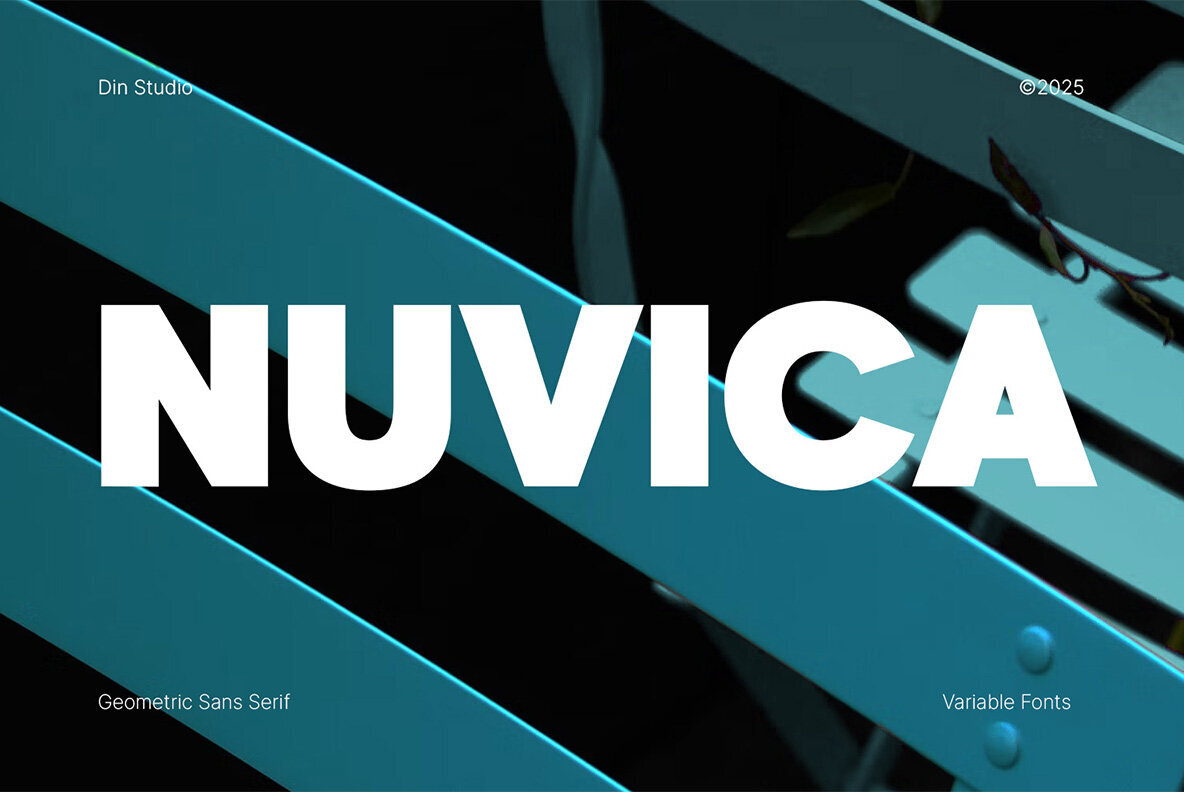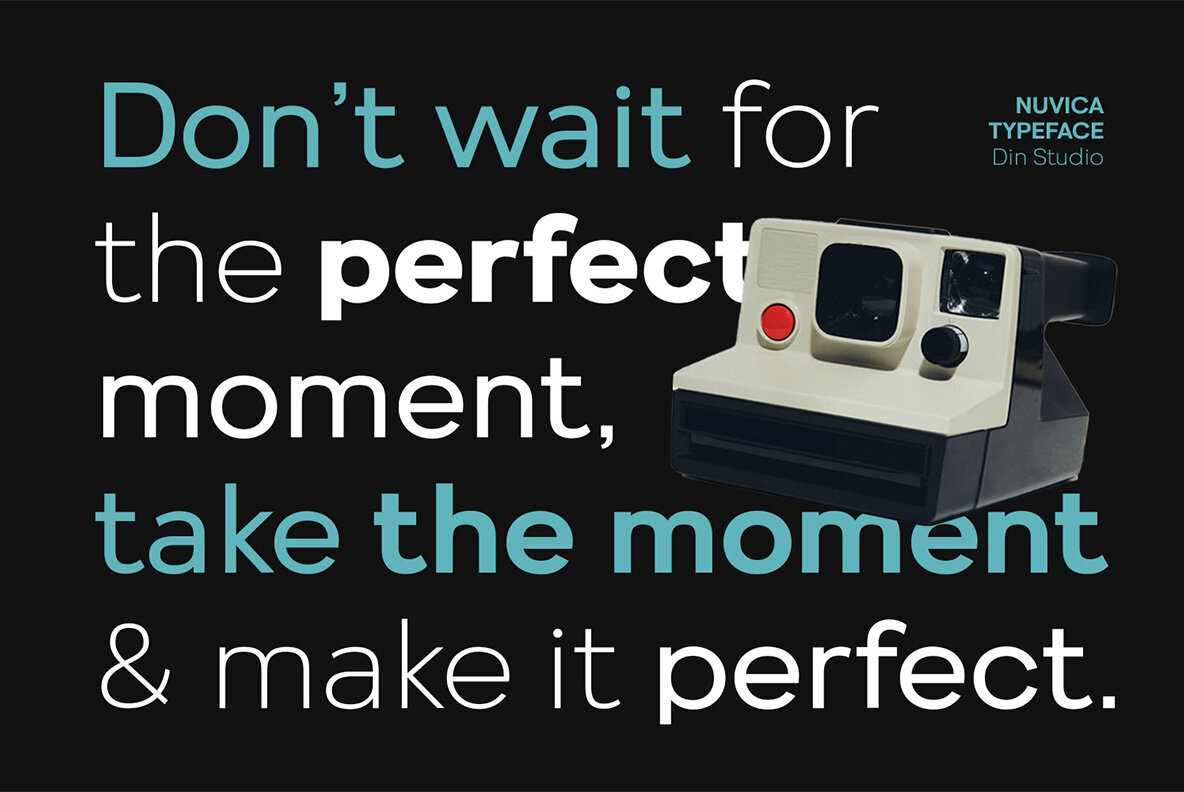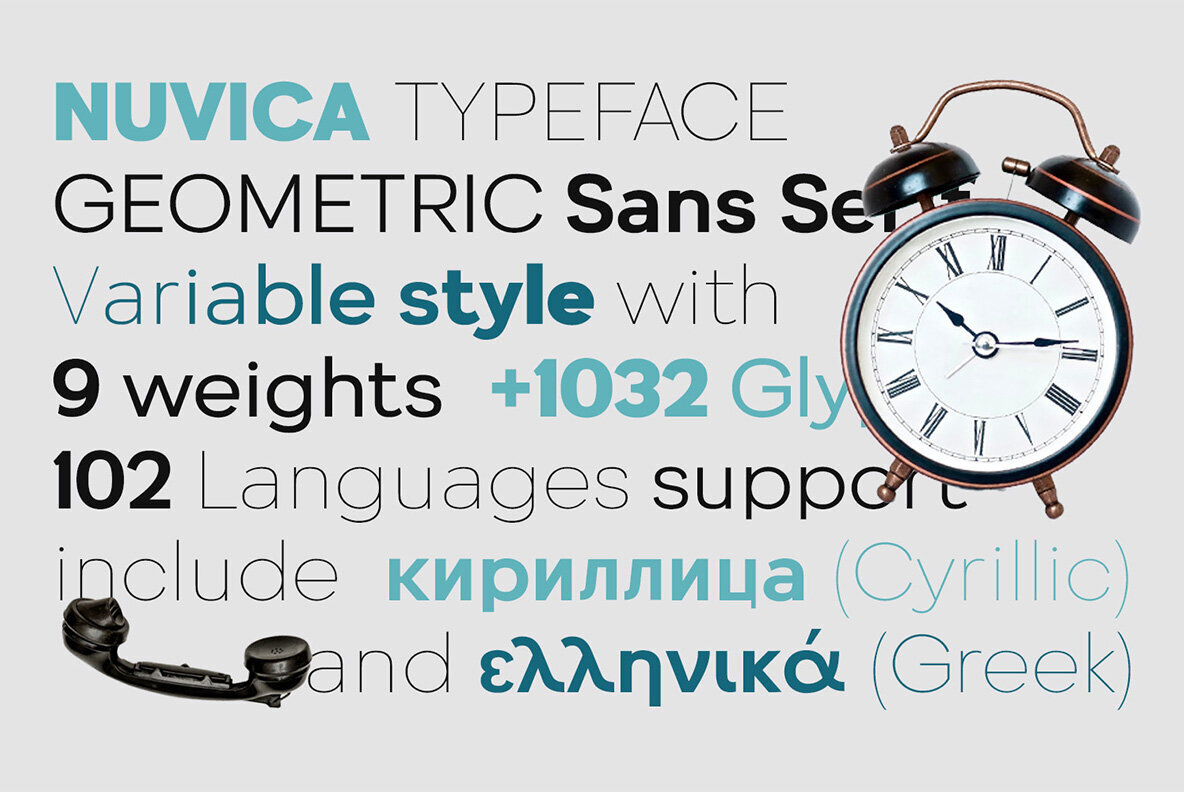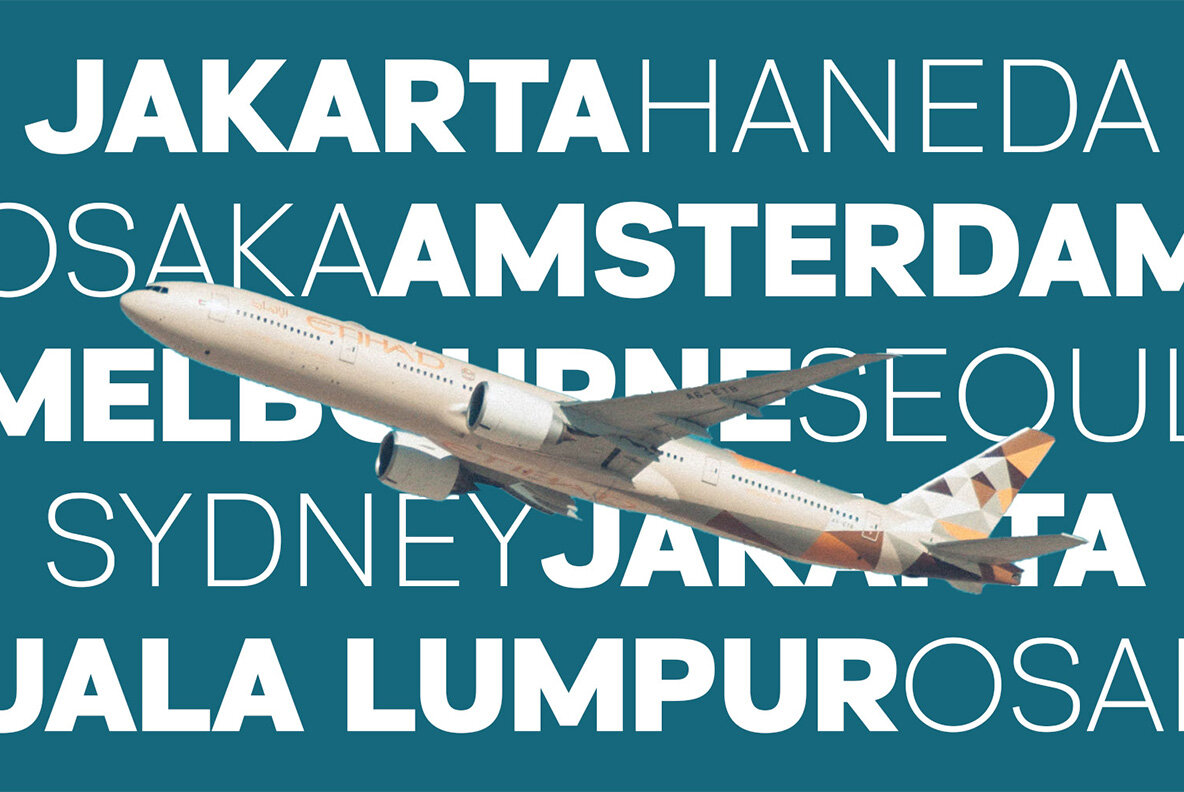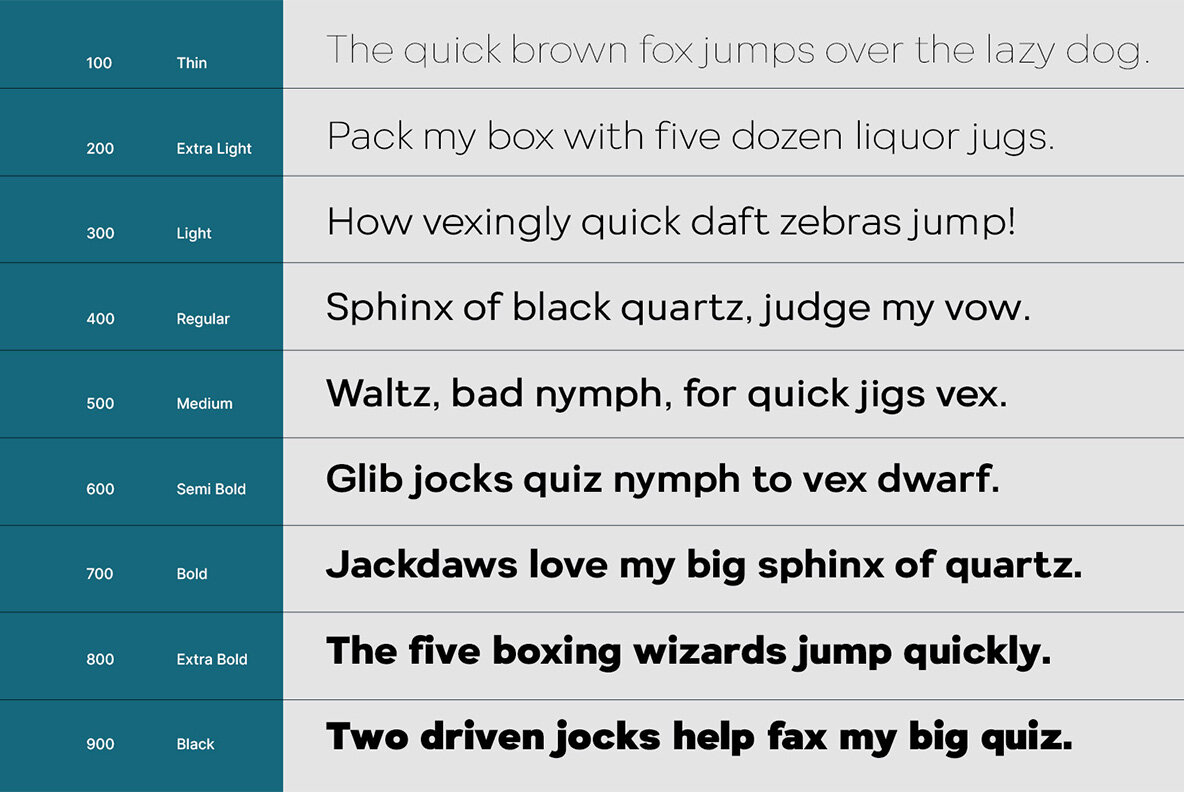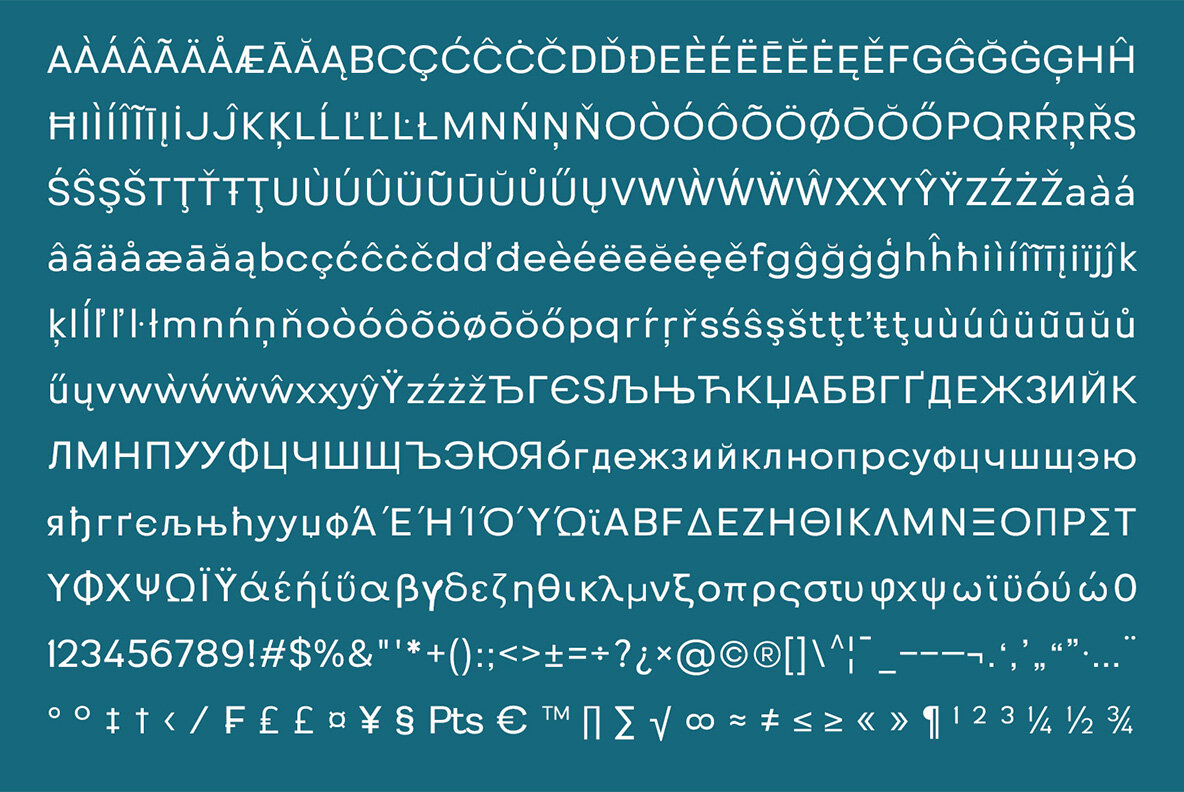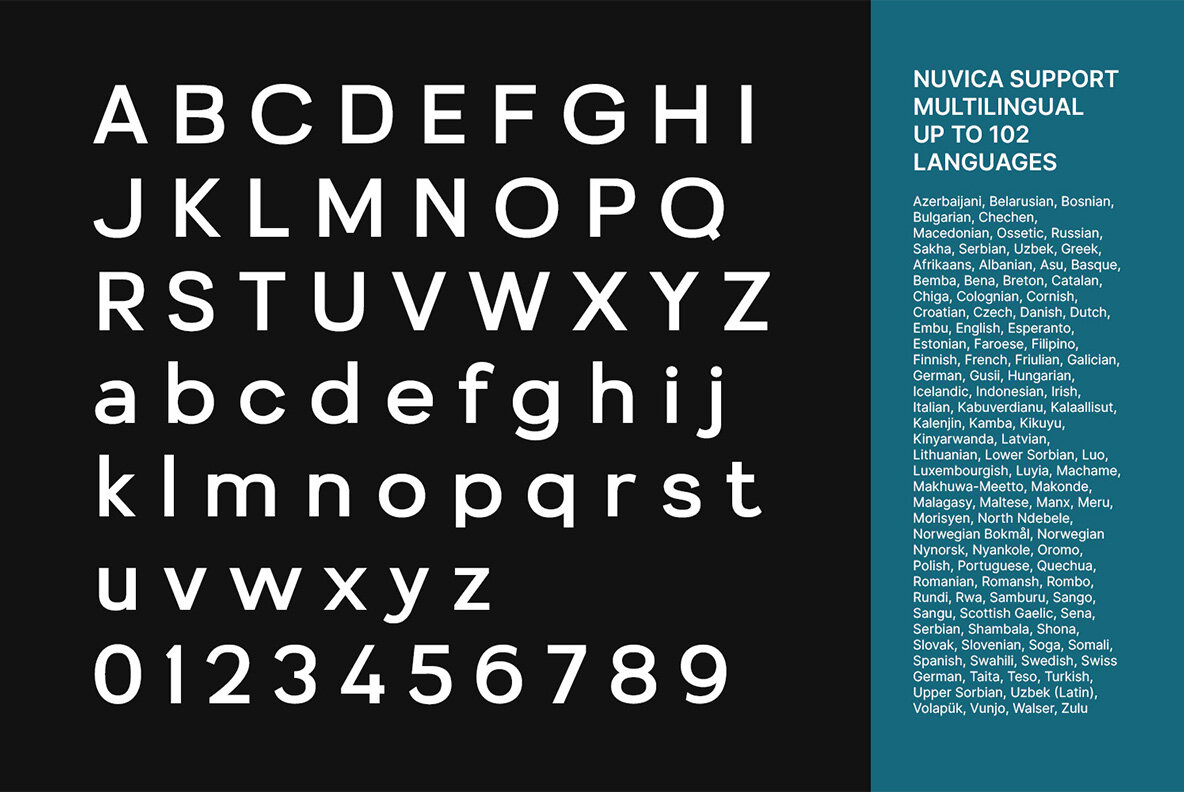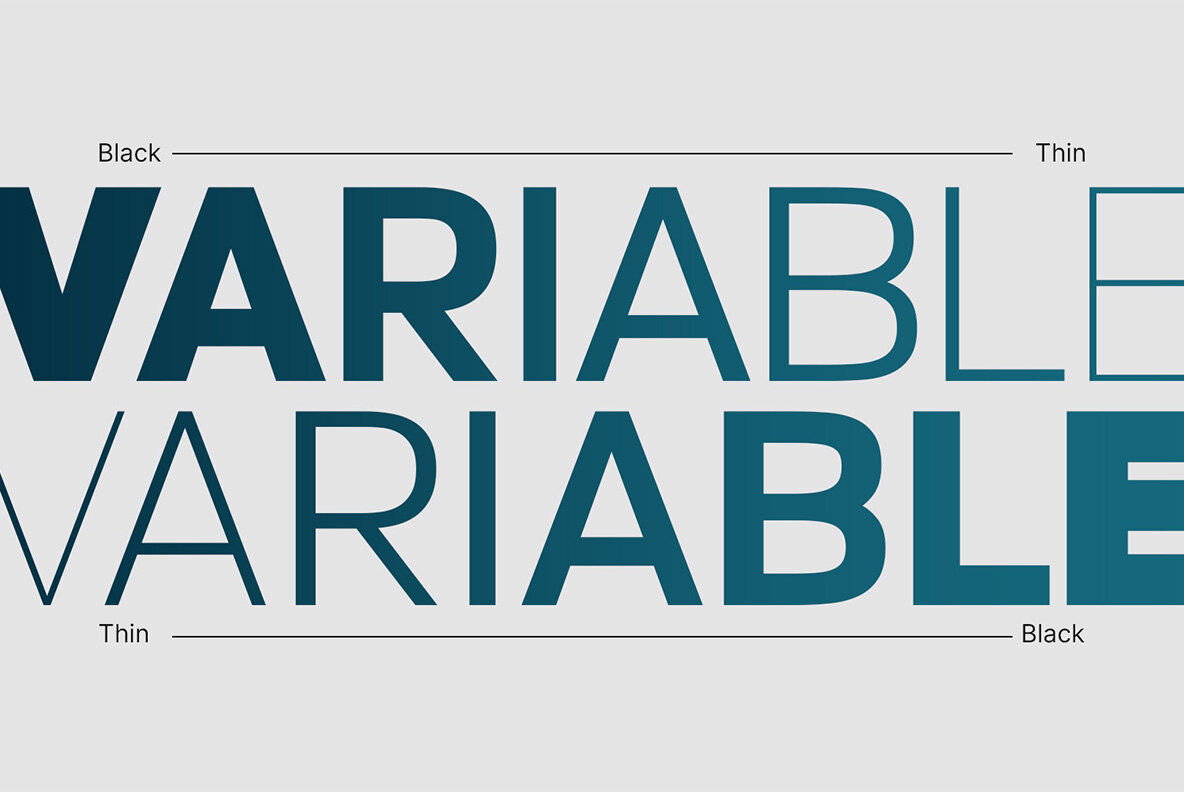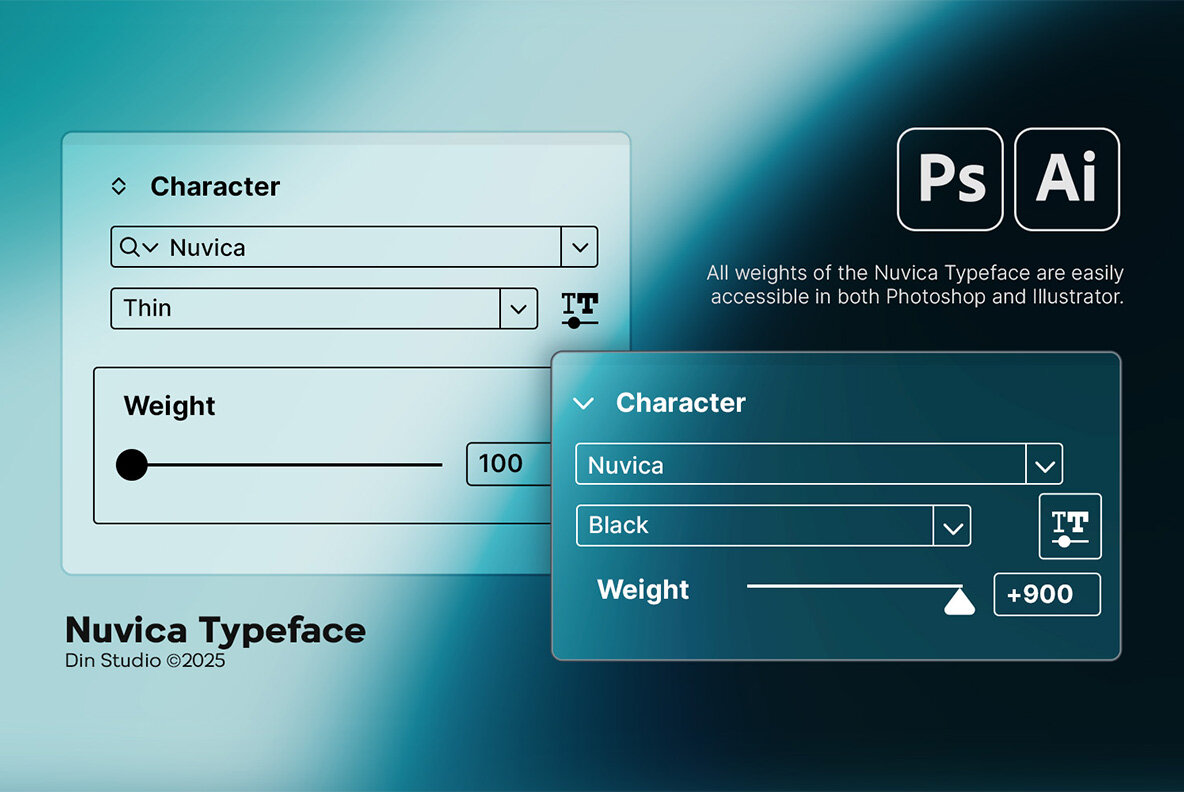
Nuvica Font
Nuvica stands as a contemporary geometric sans serif font family, thoughtfully engineered to offer a clean and modern aesthetic. With nine meticulously designed weights, ranging from Thin to Black, Nuvica is crafted for versatility across a multitude of design applications. Its precise geometric form ensures a harmonious and balanced presentation with crisp, minimalist lines that remain ever-fresh and timeless. Nuvica fuses functionality with an elegant style, presenting itself as an indispensable asset for today’s designer. Features: Whether you're designing name cards, branding materials, packaging, or editorial pieces, Nuvica adapts seamlessly to diverse formats. Delve into the possibilities this font offers by exploring its full preview.Nuvica: Bold Geometric Sans Serif Precision